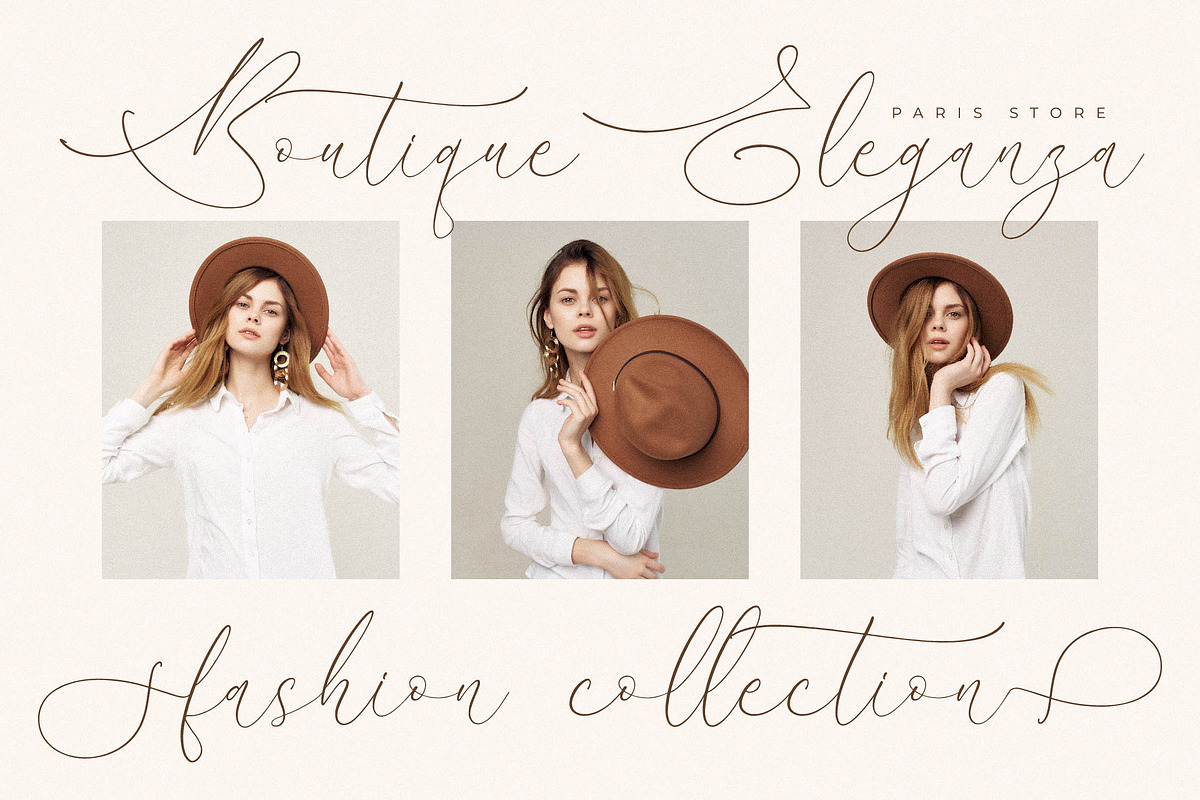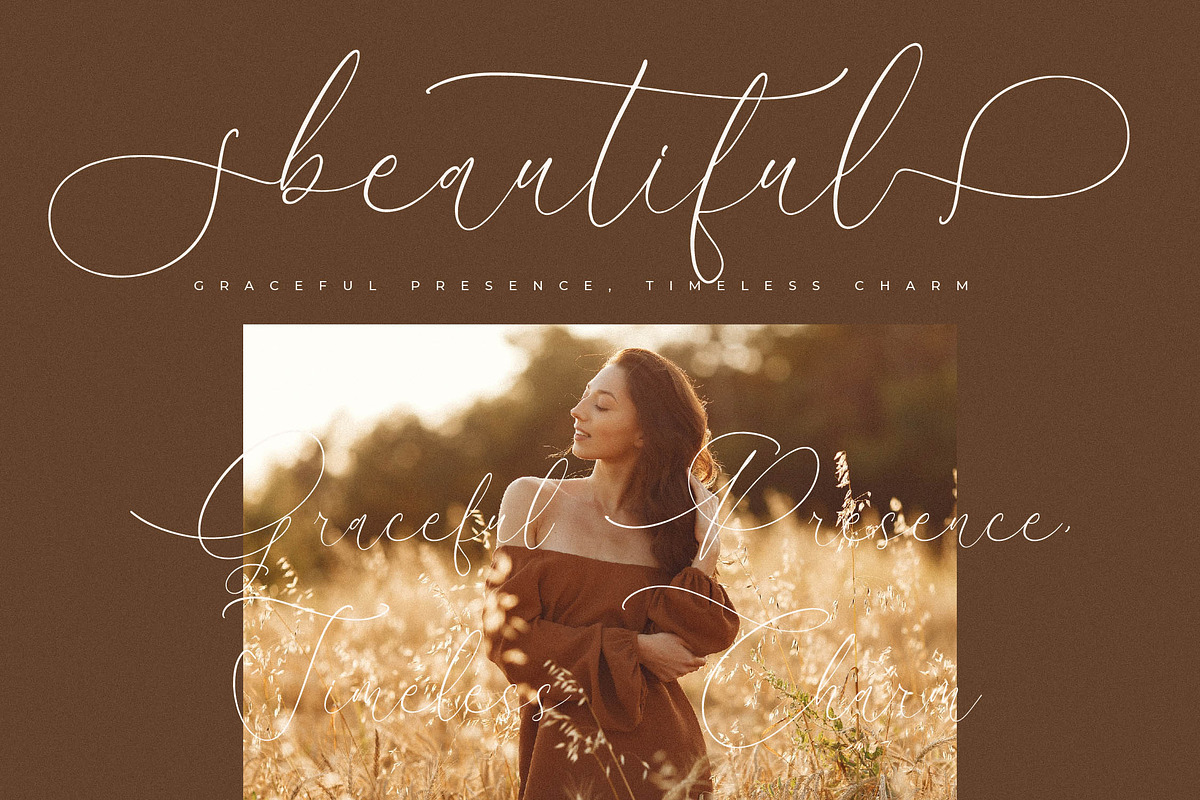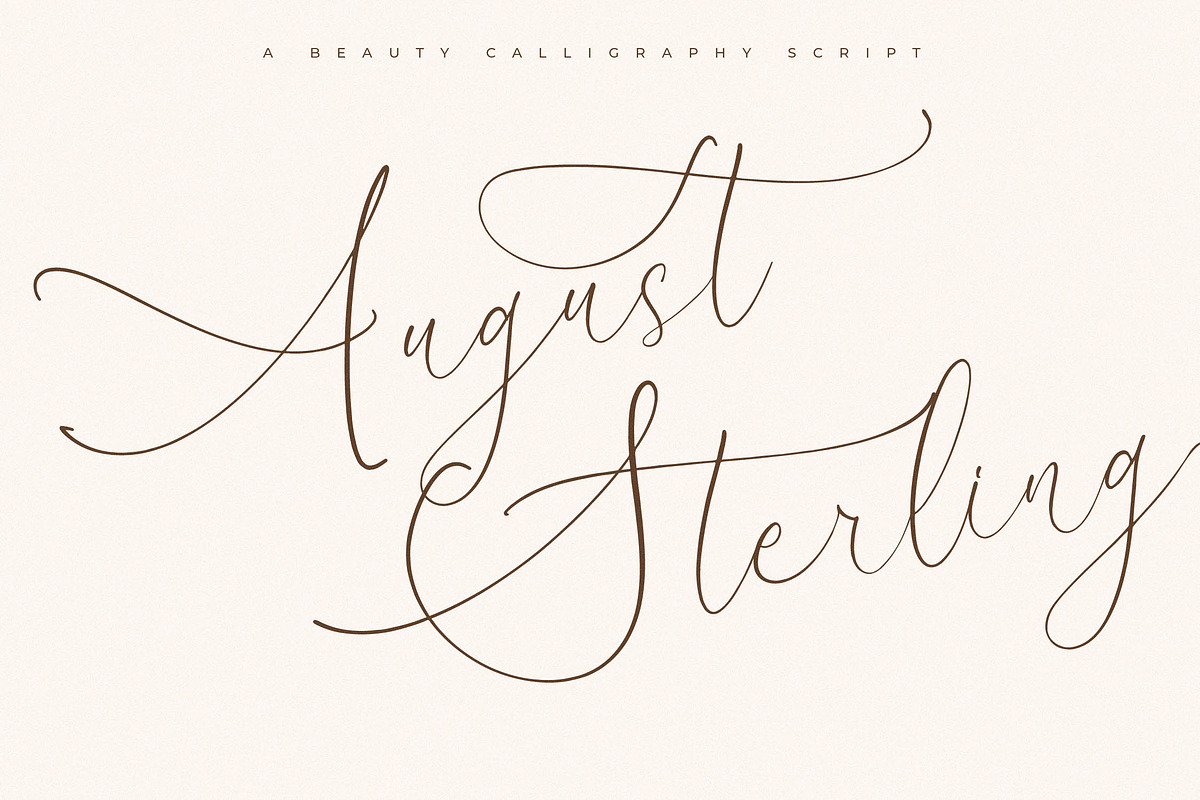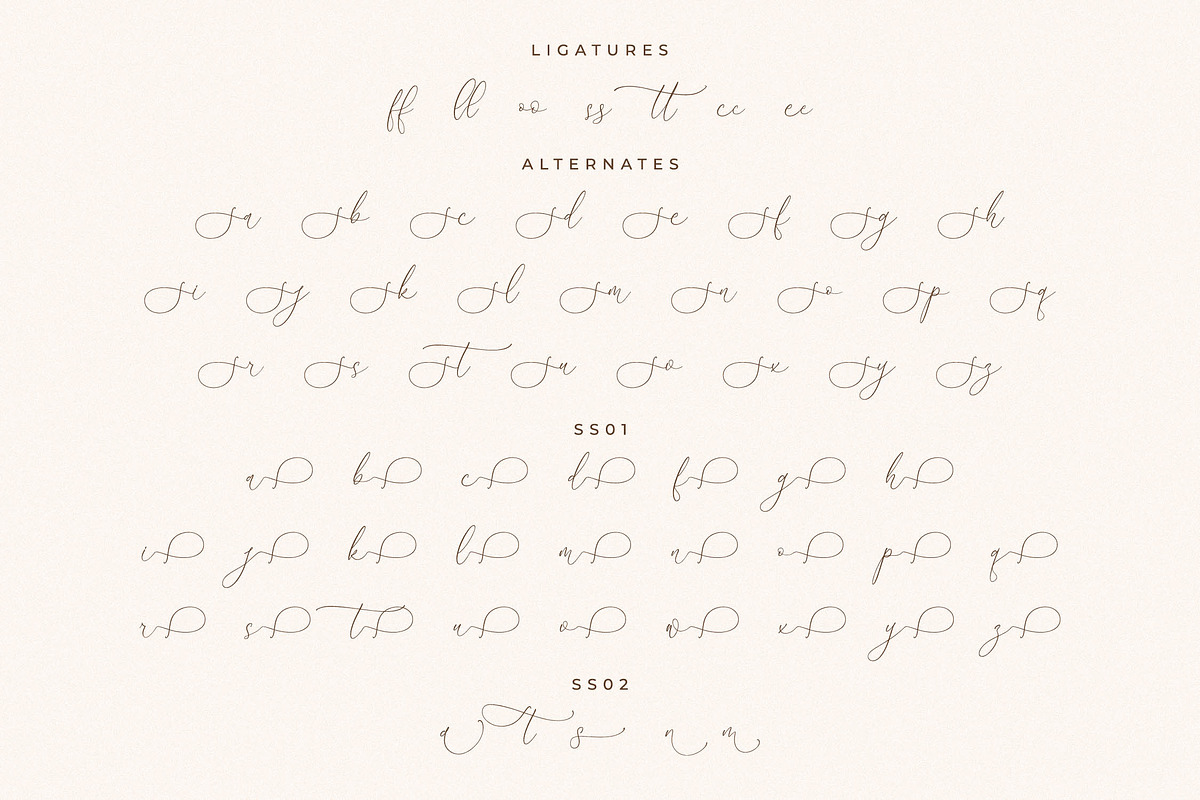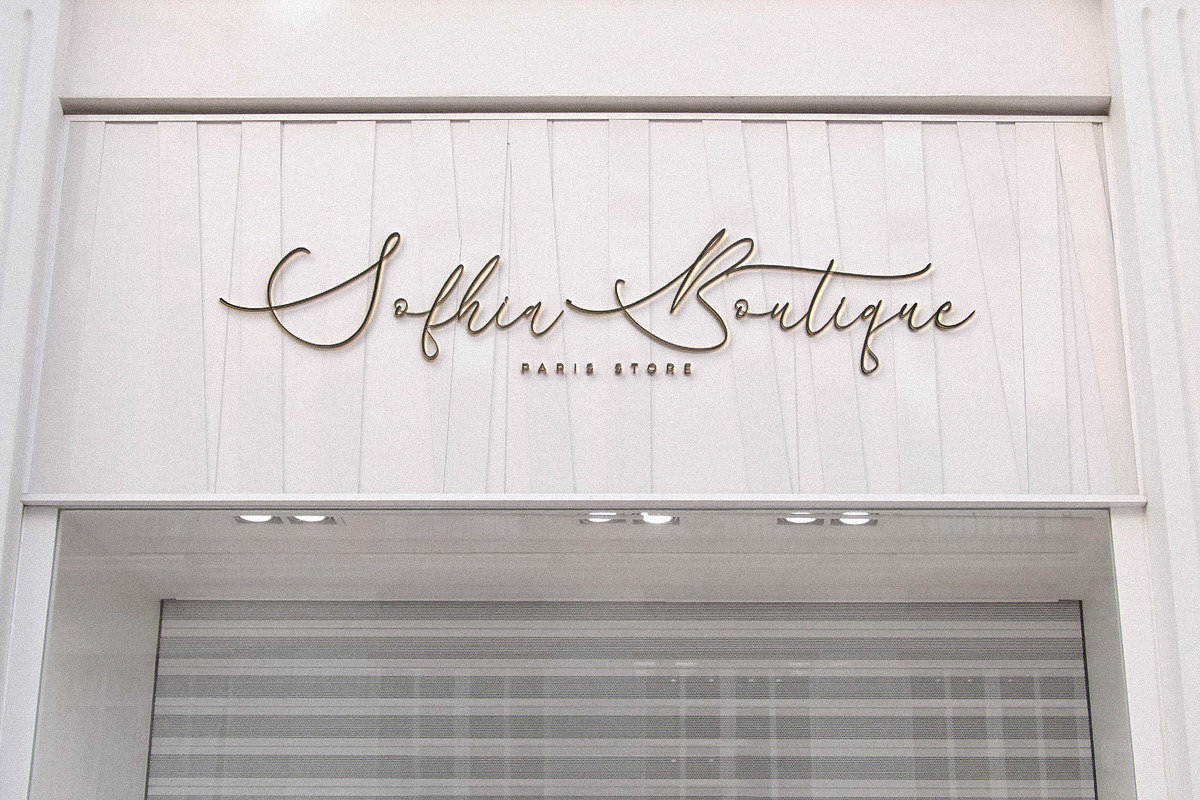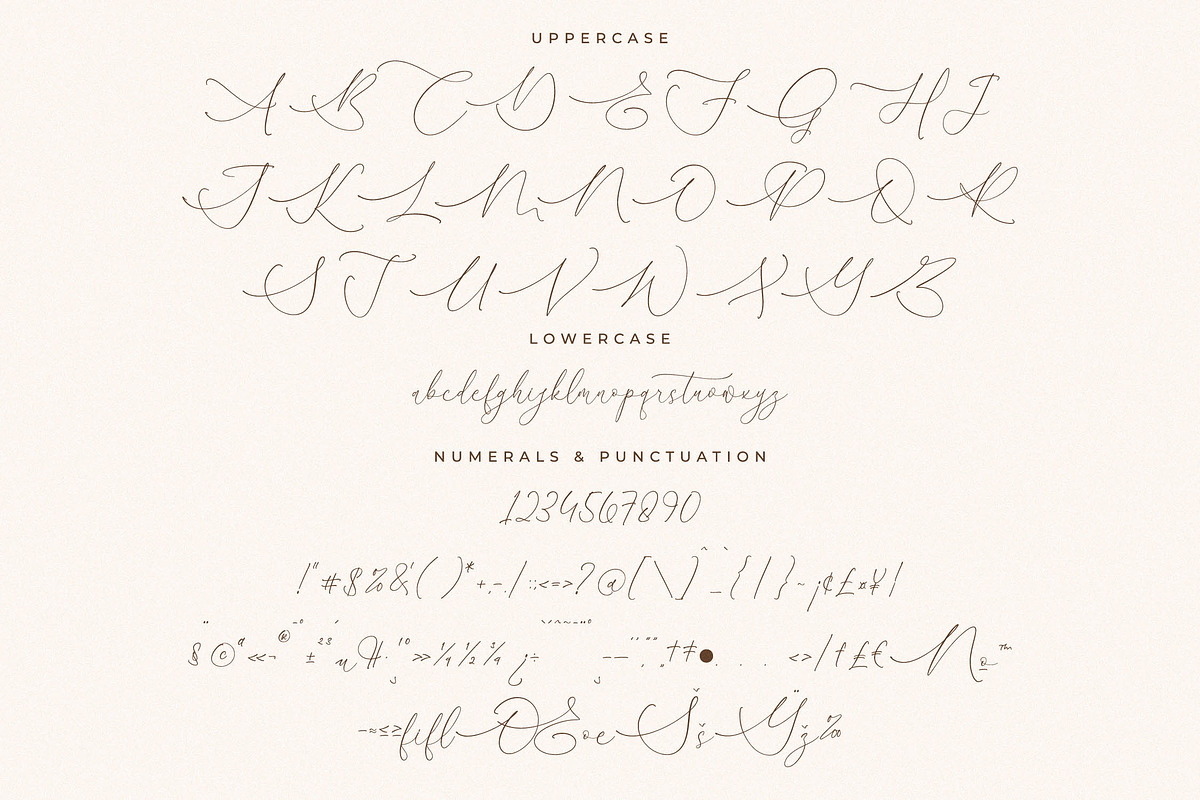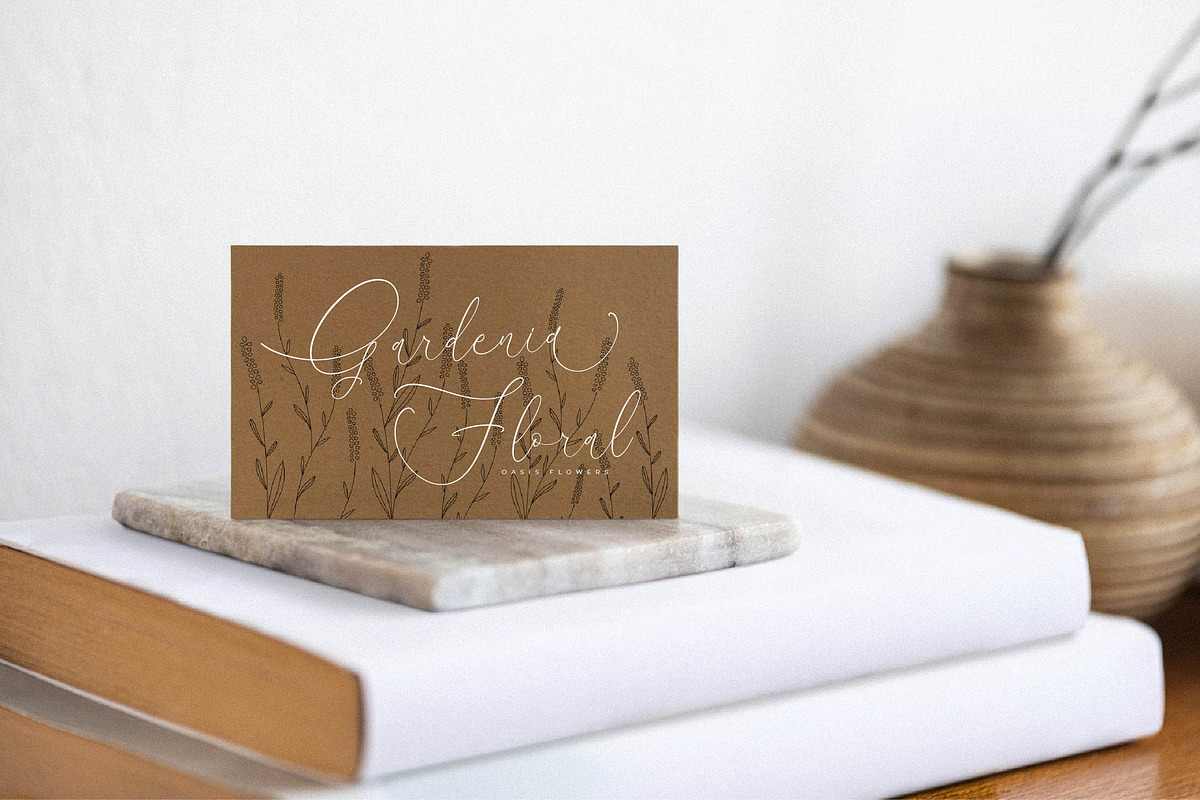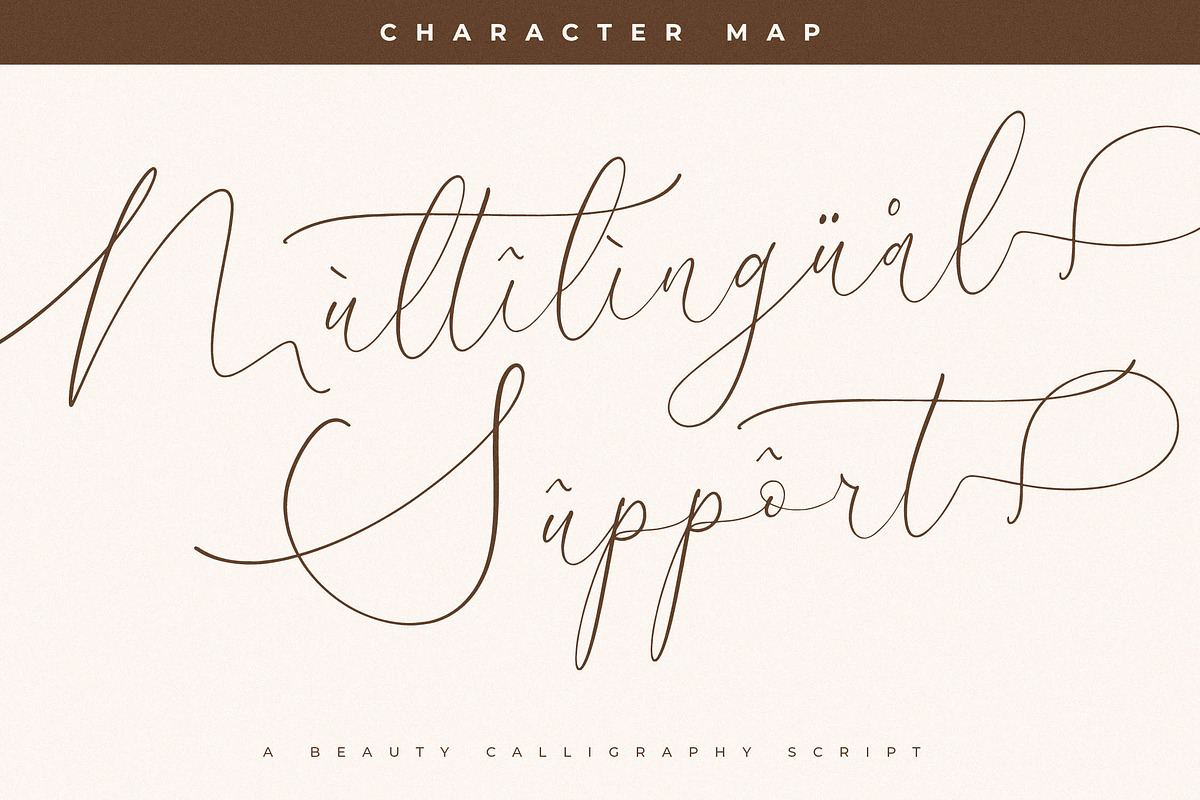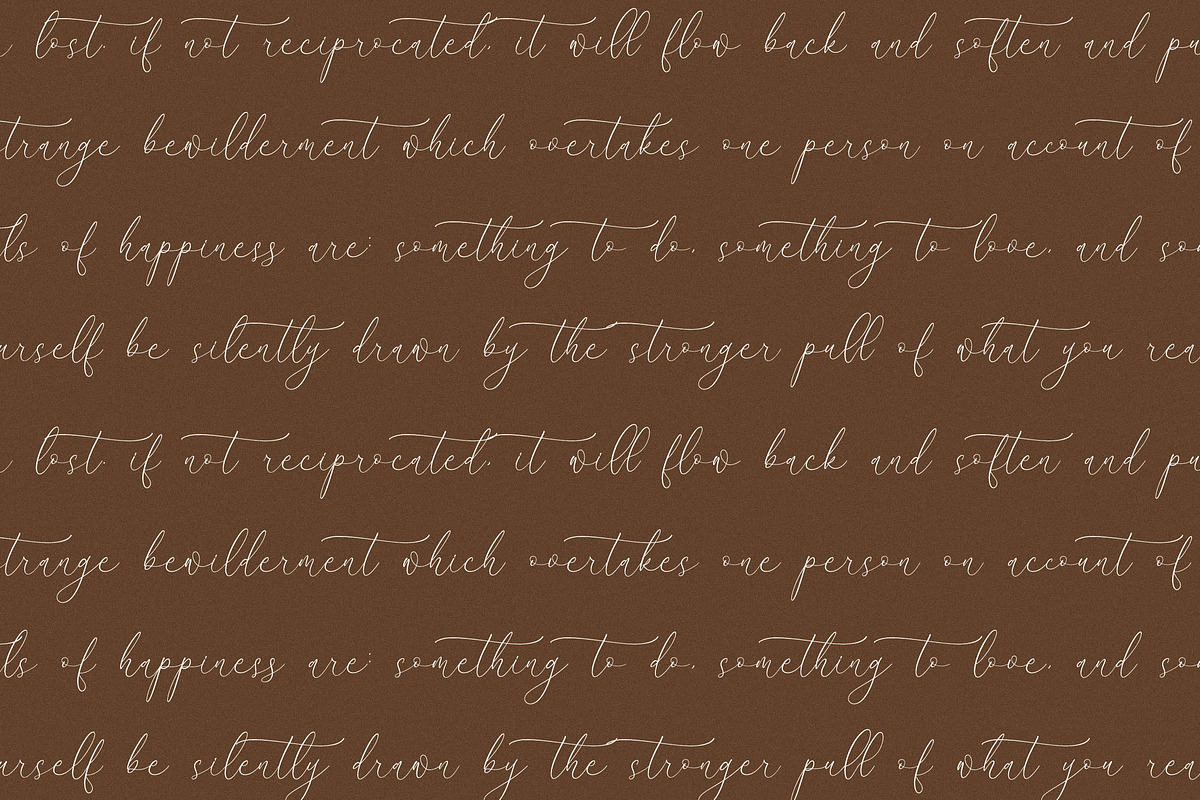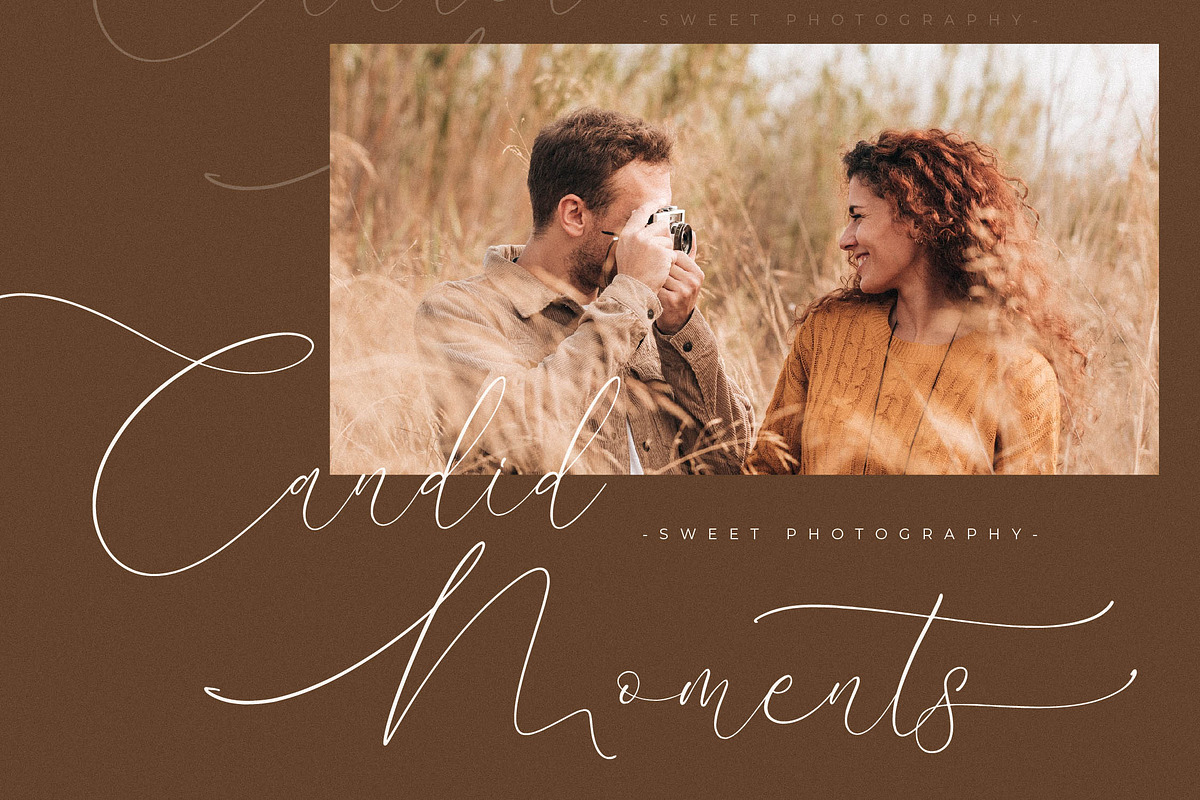
August Sterling Beauty Calligraphy
Proudly present August Sterling – Beauty Calligraphy Script , created by Storytype, A luxury script that has own unique style & modern look. This typeface is perfect for an elegant & luxury logo, book or movie title design, fashion brand, magazine, clothes, lettering, quotes, and so much more.